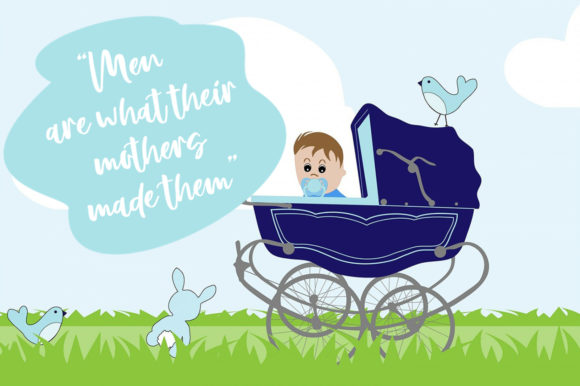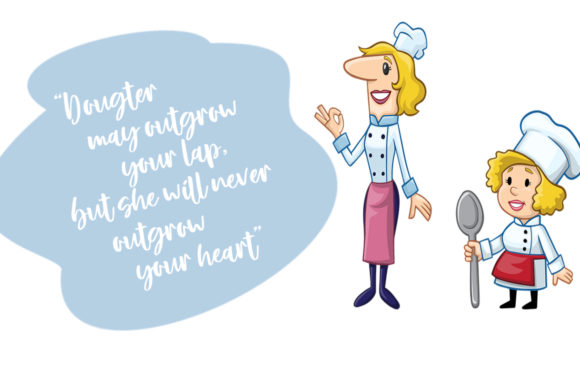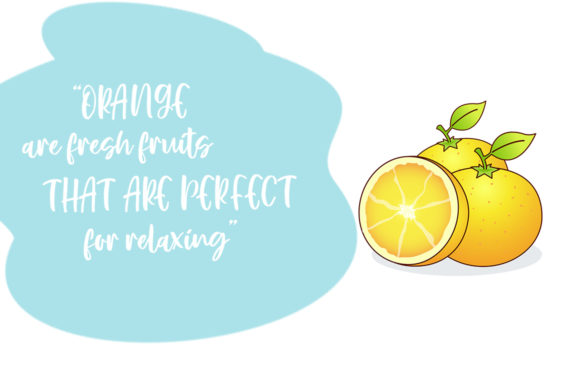
Introduction to Rosemerry Script Font
Remember the moment when you’re working on a creative project, and the perfect font is missing? The one that adds a touch of magic to your design? For many of us, that moment is all too familiar. But, what if I told you there’s a solution that’s as beautiful as it is functional? Say hello to the enchanting Rosemerry Script Font, a must-have handlettered font that’s about to become your new favorite design resource.
Whether you’re a seasoned designer or just starting out, the Rosemerry Script Font is an invaluable addition to your toolkit. With its sweet, whimsical feel, it’s perfect for adding a romantic touch to any project. And the best part? It’s available for free download, complete with a transparent background, making it easy to integrate into your design. So, what are you waiting for? Get ready to elevate your creative projects with the stunning Rosemerry Script Font.
Key Features of Rosemerry Script Font
- High-quality, elegant script font perfect for creative projects requiring a touch of sophistication.
- Features a unique, cursive script design that adds a personal touch to any creative project.
- Can be used for a variety of design applications, from invitations and cards to branding and advertising materials.
Honest Review: Rosemerry Script Font
As a designer, I’m always on the lookout for unique and high-quality design resources to elevate my creative projects. Recently, I had the chance to try out the Rosemerry Script Font, and here’s my honest review.
- ✨ Beautiful, hand-drawn style that’s perfect for creating a personal and emotive touch in your designs
- ✨ Clear and transparent background, making it easy to use with different images and backgrounds
- ✨ High quality, with smooth lines and precise details
Overall, I’m impressed with the Rosemerry Script Font, and I think it’s a great addition to any designer’s toolkit. While it may not be perfect, it’s a high-quality resource that’s perfect for personal or small-scale projects. If you’re looking for a unique and emotive font for your creative project, I’d definitely recommend giving it a try.
Introduction to Rosemerry Script Font
Rosemerry Script Font is a beautiful, high-quality design resource that can elevate your creative project to the next level. With a transparent background, this font is perfect for adding a touch of elegance to your designs.
To get the most out of Rosemerry Script Font, use it sparingly and strategically. Combine the font with other design elements to create a visually appealing design. Experiment with different font sizes, colors, and arrangements to find the perfect look for your project.
Common Use Cases for Rosemerry Script Font
Rosemerry Script Font is perfect for a variety of creative projects, including wedding invitations, birthday cards, and social media graphics. Its elegant and sophisticated look makes it ideal for high-end designs and special occasions.